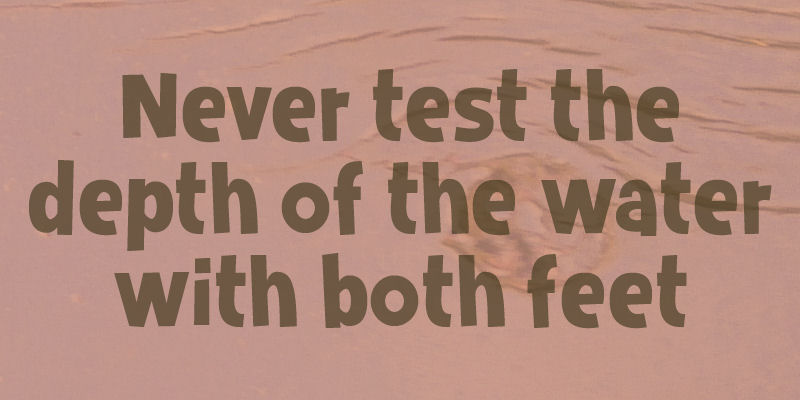
Chicken Salad Font is a quirky and wonderfully charming typeface, perfectly suited for projects that aim to evoke a sense of playful creativity, homemade goodness, and a delightfully informal personality. Imagine it gracing the labels of artisanal food products, adding a whimsical and inviting touch to cafe menus, or bringing a personal and engaging personality to cooking blogs and recipe cards. It's also an excellent choice for crafting distinctive branding for local eateries, designing unique labels for homemade treats, or infusing digital content and social media graphics with a genuine, unpretentious appeal. If you're looking to convey cheerfulness, authenticity, and an undeniable sense of comforting originality, Chicken Salad Font is an outstanding selection.
What makes Chicken Salad Font so exciting? It’s its unique ability to combine a casual, often slightly irregular aesthetic with impressive legibility, making it both visually appealing and highly practical for diverse applications. This font often features soft curves, subtle imperfections, and a friendly, unpretentious charm that gives it an immediate sense of warmth and accessibility, reminiscent of hand-drawn lettering or a beloved family recipe. Despite its informal character, Chicken Salad Font is meticulously designed to maintain excellent readability, ensuring your message is communicated clearly and with a warm, inviting tone. Designers will appreciate its versatility in creating designs that feel both intimately personal and professionally charming, making it a go-to choice for brands and projects that aim to connect with their audience through themes of homemade comfort, genuine creativity, and a welcoming atmosphere.
The Chicken Salad Font family is typically designed to showcase a singular, distinctive display or script style that perfectly encapsulates its unique appeal. While it may not feature extensive weight variations like a traditional text font, its strength lies in its inherent personality and often includes stylistic alternates or simple ligatures that enhance its cheerful aesthetic. These subtle details allow Chicken Salad Font to maintain its cohesive and heartwarming look across various applications, from inviting e-commerce banners for gourmet goods to charming personal correspondence. Discover the delightful possibilities with Chicken Salad Font Free Download and infuse your designs with an irresistible, comforting charm.